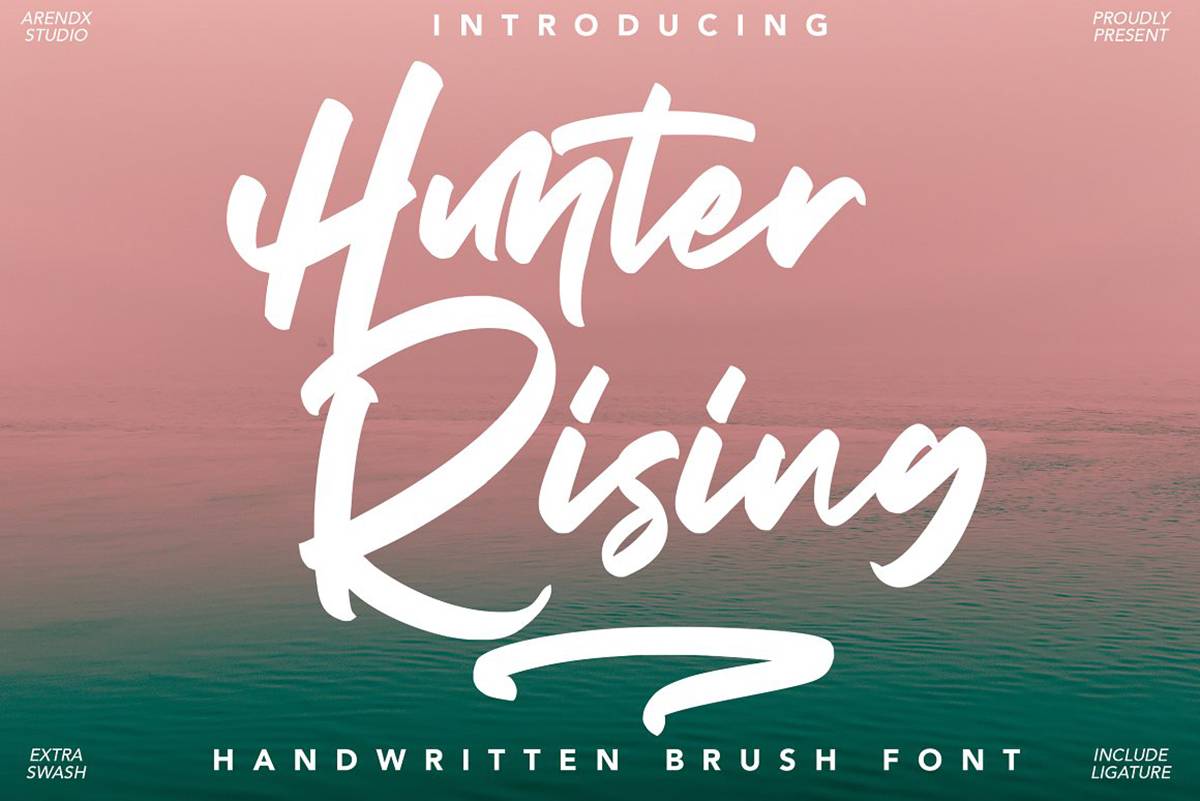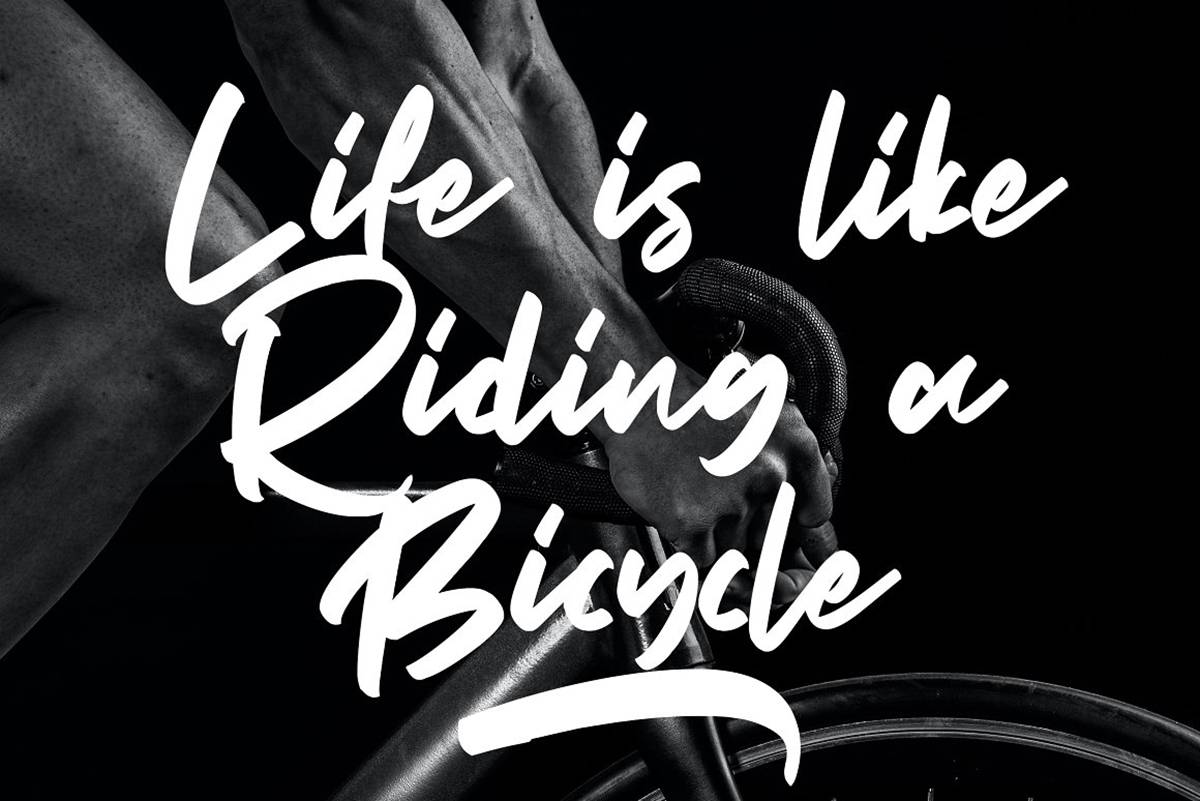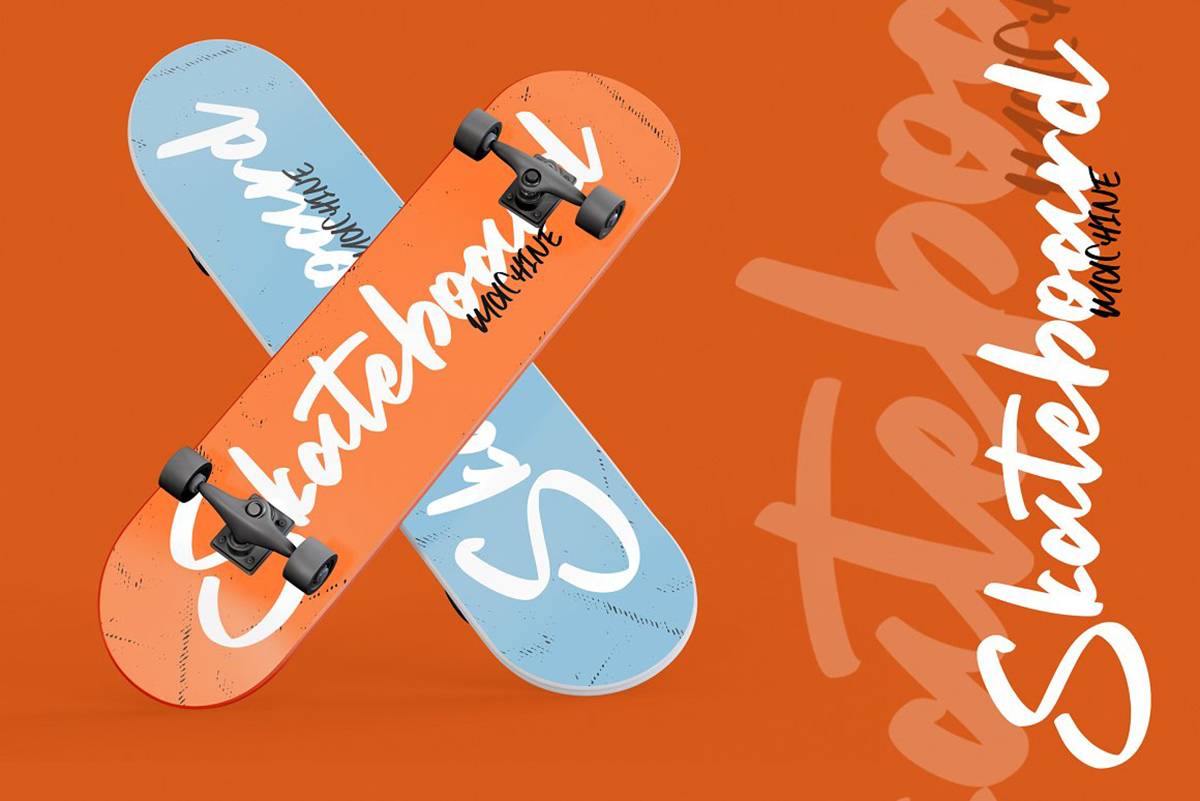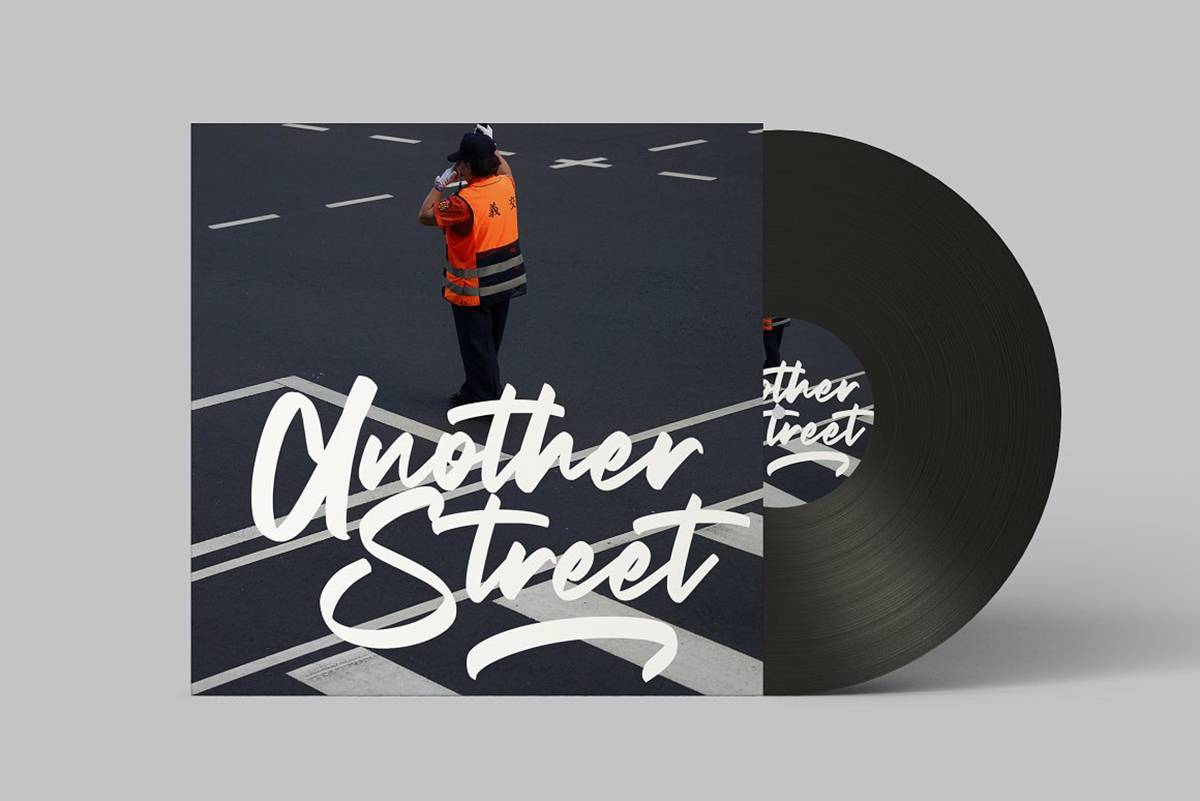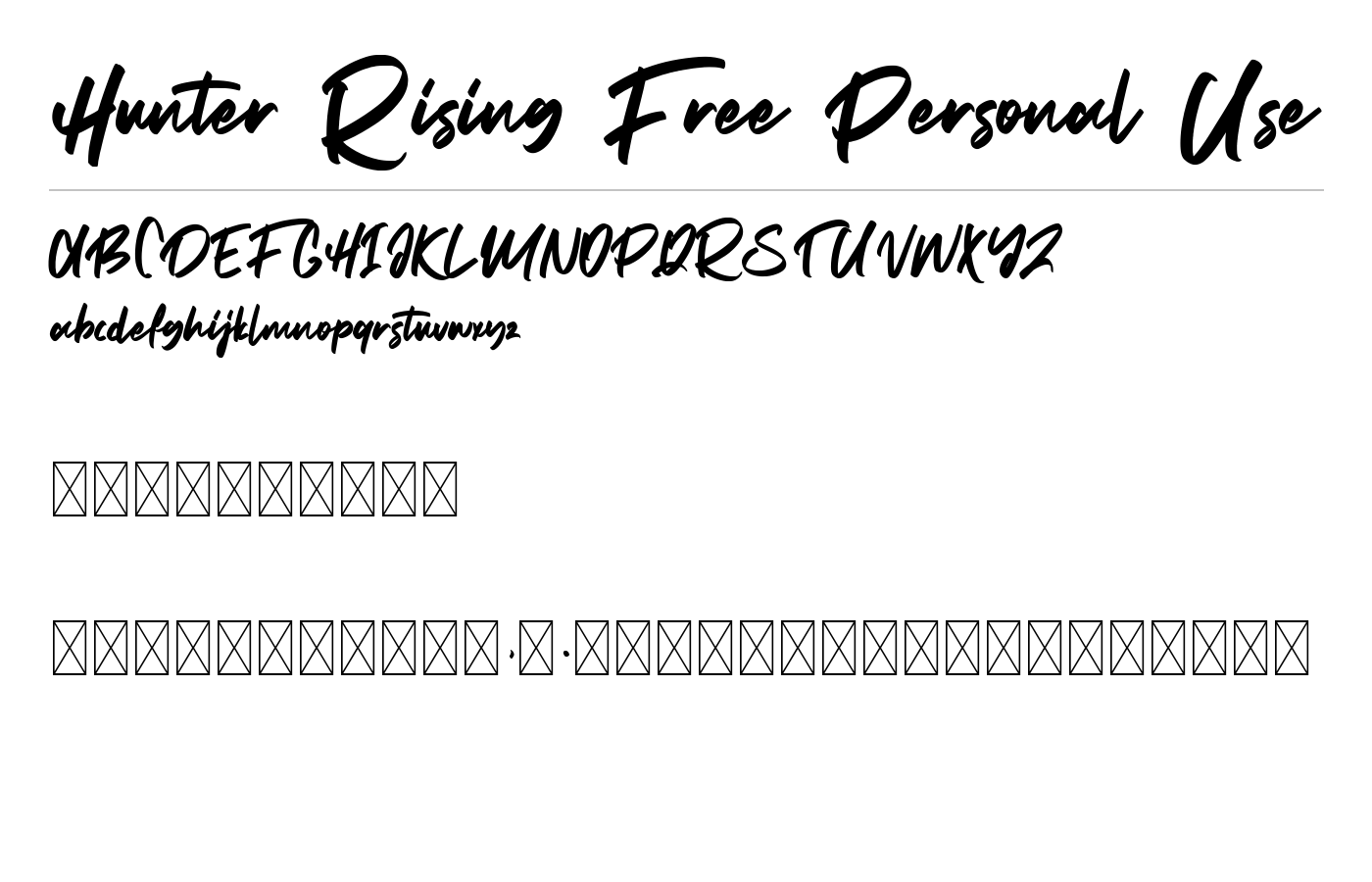
Hunter Rising is a lively, brush-script font characterized by its bold, energetic strokes and casual, hand-drawn style. With its dynamic letterforms and slightly condensed spacing, it conveys a friendly, approachable mood perfect for creative projects, branding, and invitations where a personal, artistic touch is desired. This font works well for headlines and logos that need a modern, expressive flair with an informal yet confident personality.
Hunter Rising Font
About Hunter Rising Font
| Font family | Hunter Rising Font |
| Release date | 2020-10-03 |
| Designer | arendxstudio |